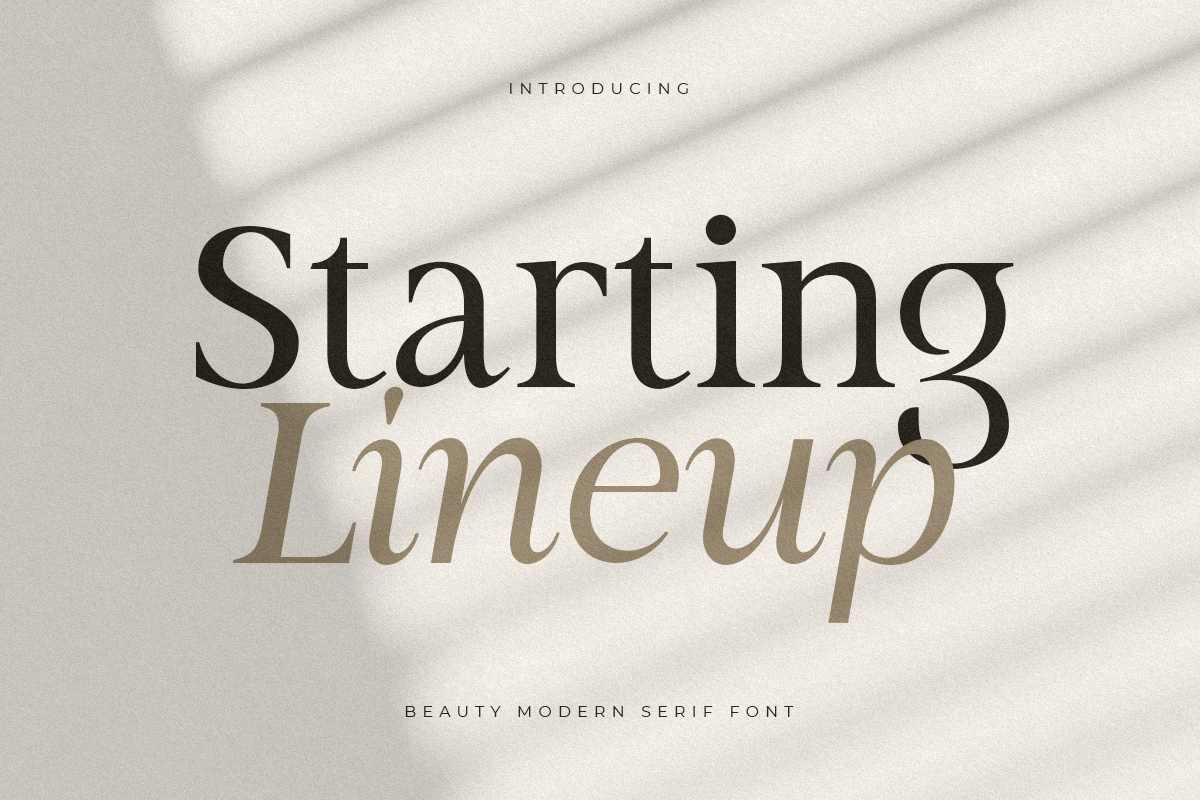
Starting Lineup
-Beauty Modern Serif Font Family
A Modern Beauty Serif font that we created special for elegant branding needs, with unique shape will be ready to add value of your brand. It so nice to leverage designer or product owner that need solutions to make their design look more stylish and modern. And specially for Almost font, We prepared any characters to help you create unlimited variations for your creative needs.
• Ready with Regular and Italic version